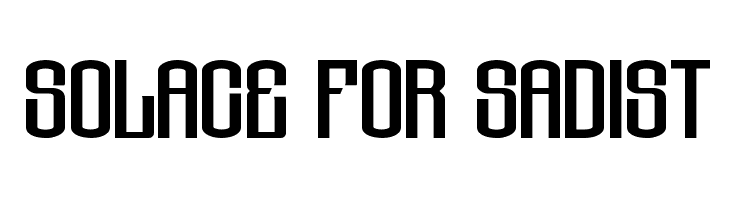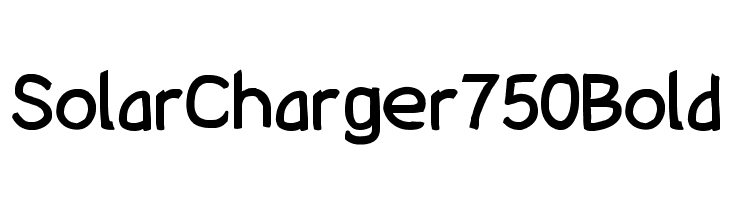
A bold, modern font with a geometric and condensed design.
A bold, playful font with rounded edges and a hand-drawn feel.
A bold, dynamic font with a slight slant and smooth, rounded characters.
A playful, hand-drawn font with thin strokes and a whimsical style.
A sleek, modern, and slightly italicized font with a hairline weight.
A playful, hand-drawn font with rounded, irregular characters.
A modern, oblique font with a light weight and sleek design.
A playful, hand-drawn font with a casual and approachable style.
A modern, oblique font with consistent strokes and a dynamic appearance.
A playful, bold font with rounded, hand-drawn letterforms.